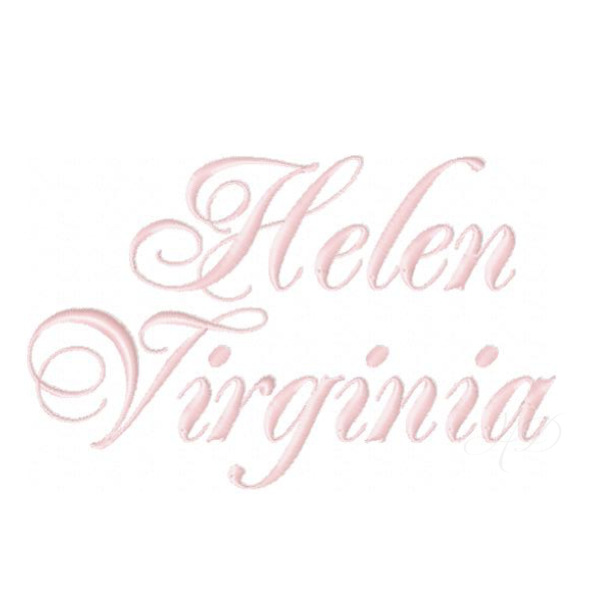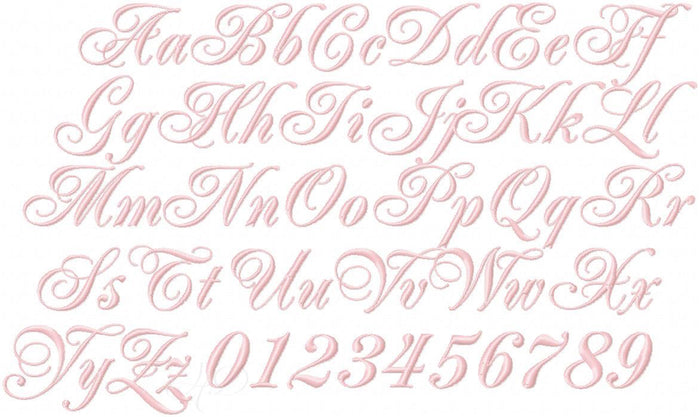
Helen Virginia Embroidery Font Collection
Unlock your creativity with the Helen Virginia Embroidery Font Collection. This versatile package includes five sizes of elegant satin-stitch fonts specifically designed for embroidery machine monogramming. Perfectly fitting into a 4x4 hoop, each size showcases 26 uppercase letters, 26 lowercase letters, and numbers 0-9, providing everything you need for personalized designs.